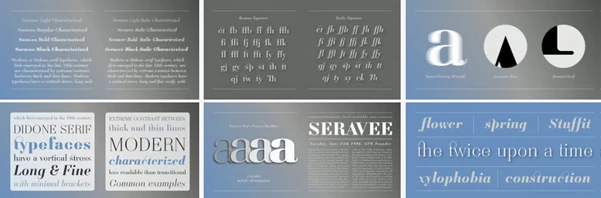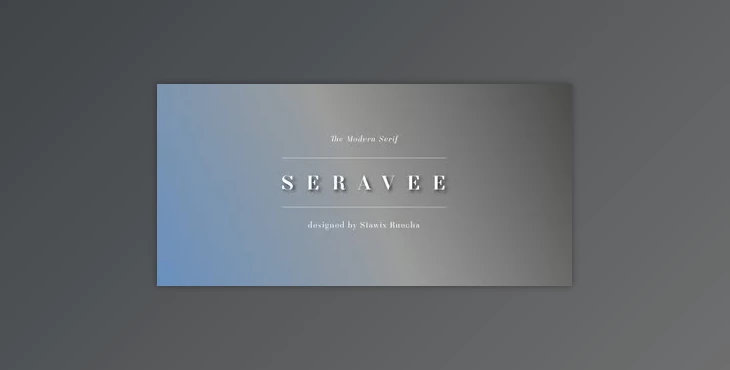
The Seravee Font Family is a complete collection of fonts inspired by the classic beauty of Modern (Didone) Typography. Created by Bangkok-based type designer Stawix Ruecha, these powerful and highly readable fonts become even more appealing with the increase in weight. This family of fonts isn't merely programmed - each weight is hand-crafted with a humanistic approach to geometric perfection. It includes weights that span from Black to Bold to Regular to Light, making it a well-rounded and functional family of types with an appeal for ideal usability in every situation.
It's perfect for print and digital designs alike. If you're looking for beauty in a font without sacrificing usability, the Seravee Font Family is for you. It's a beautiful approach to type with a good range of weights to ensure virtually every potential use is covered.